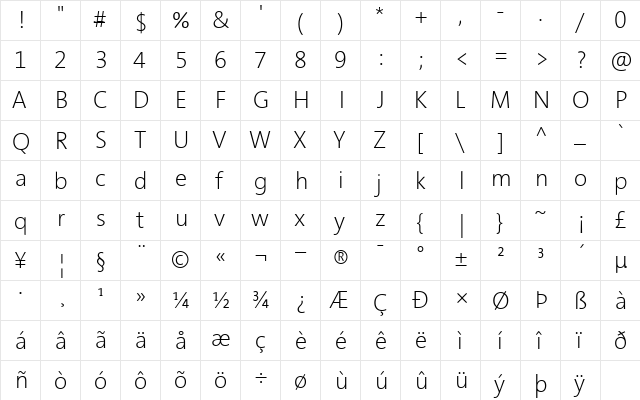
Segan Light
| Foundry | Rodney Rogers |
| Designer | Rodney Rogers |
Design Context for Segan Typeface
Segan is a composed and adaptable typeface that performs quietly and consistently across a wide range of design contexts. The delicate stroke weight brings airiness and refinement to layouts.